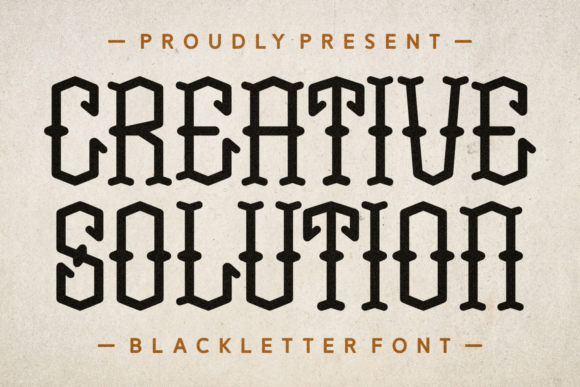
Introducing Creative Solution Font, a remarkable blackletter font designed by Creative Fabrica Fonts. If you're in search of a classic yet minimalist typeface to elevate your typography projects, look no further! This font is the perfect solution for adding a striking and captivating look to your designs.
With its unique and powerful aesthetic, Creative Solution Font is bound to captivate the attention of your audience. Whether you're creating headers, advertisements, posters, banners, signage, or any other visual masterpiece, this font will effortlessly take your project to the next level.
Embrace the timeless elegance of blackletter fonts with Creative Solution Font. Its intricate details and bold strokes make it a truly eye-catching choice for your typographic needs. As you weave words together, this font will infuse your text with a touch of sophistication and professionalism.
The versatility of Creative Solution Font allows it to adapt to a wide range of design styles and themes. Whether you're aiming for a vintage, gothic, or modern look, this font seamlessly blends with various aesthetics, effortlessly enhancing your overall design.
Crafted with meticulous attention to detail, Creative Solution Font not only ensures legibility but also adds character and personality to your text. Each letter exudes a sense of artistry, creating a visual experience that resonates with your audience.
Let your creativity flow and unleash the power of Creative Solution Font. Its emotional appeal will evoke a sense of nostalgia, intrigue, and fascination among your viewers. Watch as your typography projects come to life, leaving a lasting impression on anyone who lays eyes on them.
Don't miss out on this opportunity to enhance your typography projects with a font that effortlessly combines classic elegance with a minimalist touch. Join a community of design enthusiasts who have already discovered the power of Creative Solution Font. Elevate your designs and leave a lasting impression with this extraordinary typeface.